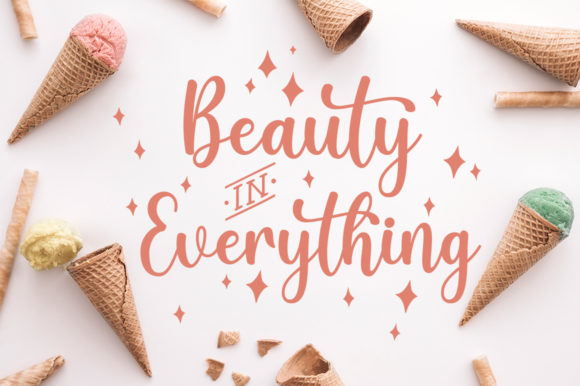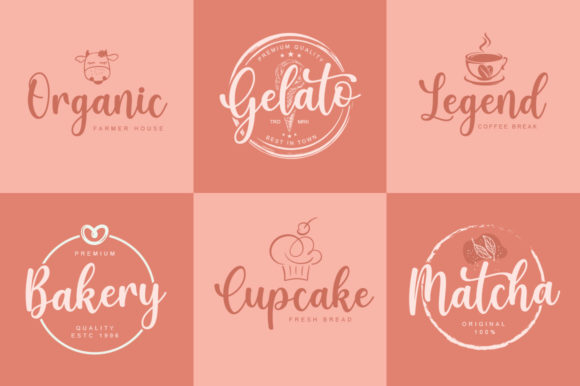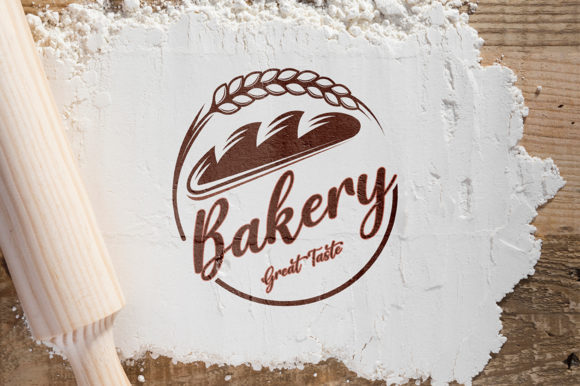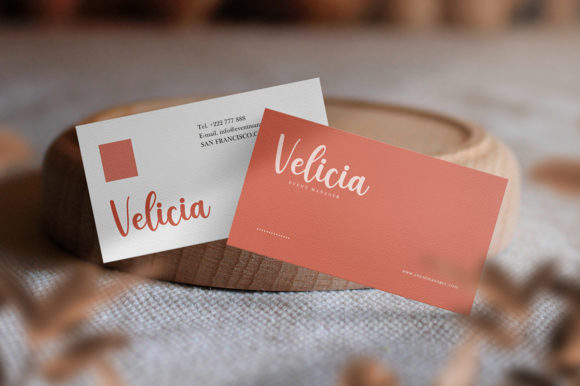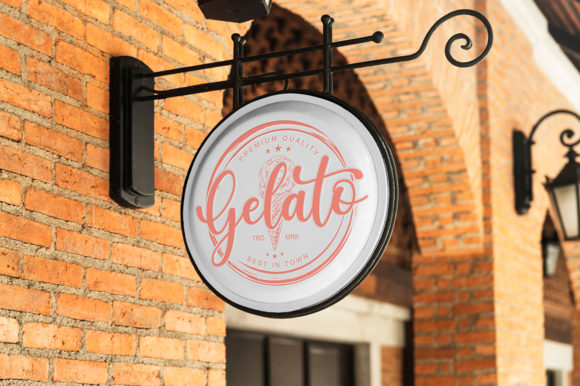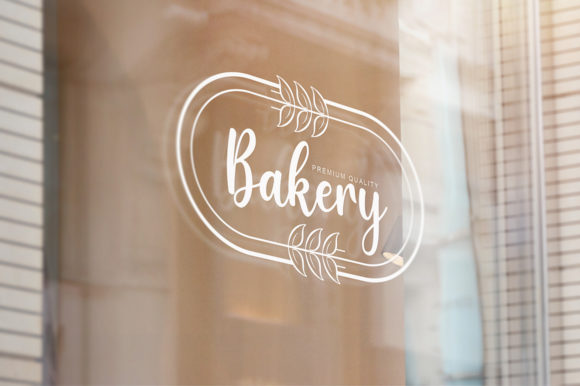
Gelato Font: A Sweet Touch for Your Designs
Have you ever found yourself brainstorming ideas for a project, scrolling through design inspiration boards, and suddenly, a spark of creativity strikes? That’s exactly what happened when designers discovered the Gelato Font – a flowing handwritten font that adds an elegant touch to any project. This beautiful script font is perfect for those looking to create a timeless and distinct style that leaves a lasting impression.
With its versatility and unique charm, the Gelato Font has become a valuable asset for designers. Whether you’re working on a wedding invitation, a logo, or a social media campaign, this font is sure to elevate your designs and make them truly special. Its distinct style and elegant touch make it an ideal choice for those who want to add a personal and sophisticated touch to their projects.
Gelato Font Key Features
- Size: Supports a wide range of font sizes, from 8pt to 1000pt
- Resolution: Optimized for high-resolution displays, including Retina and 4K screens
- Unique Characteristics: Gelato Font features a unique, hand-drawn design with a playful and modern feel
- Language Support: Supports over 100 languages, including Latin, Cyrillic, and Greek alphabets
- Kerning and Ligatures: Includes advanced kerning and ligature tables for precise typography
Gelato Font Review
As a designer, I’ve had the chance to work with a wide range of fonts, and I’m here to share my thoughts on the Gelato Font.
- ✨ Unique design: The Gelato Font has a distinct, playful look that’s perfect for creative projects and branding.
- ✨ High legibility: The font is clear and easy to read, making it suitable for body text and headings.
- ✨ Variety of weights: The font comes in multiple weights, allowing for flexibility in design and a cohesive look across different elements.
- ⚠️ Limited language support: The Gelato Font doesn’t support many non-Latin languages, which may be a limitation for international projects.
- ⚠️ Not ideal for small text: While the font is legible, it may not be the best choice for small text due to its rounded design.
Overall, the Gelato Font is a great choice for designers looking for a unique, high-quality font. While it may have some limitations, its strengths make it a valuable addition to any design arsenal. I’d recommend it for creative projects and branding, but be aware of its limitations when working with non-Latin languages or small text.
The Gelato Font is perfect for:
- Restaurant and cafe signage.